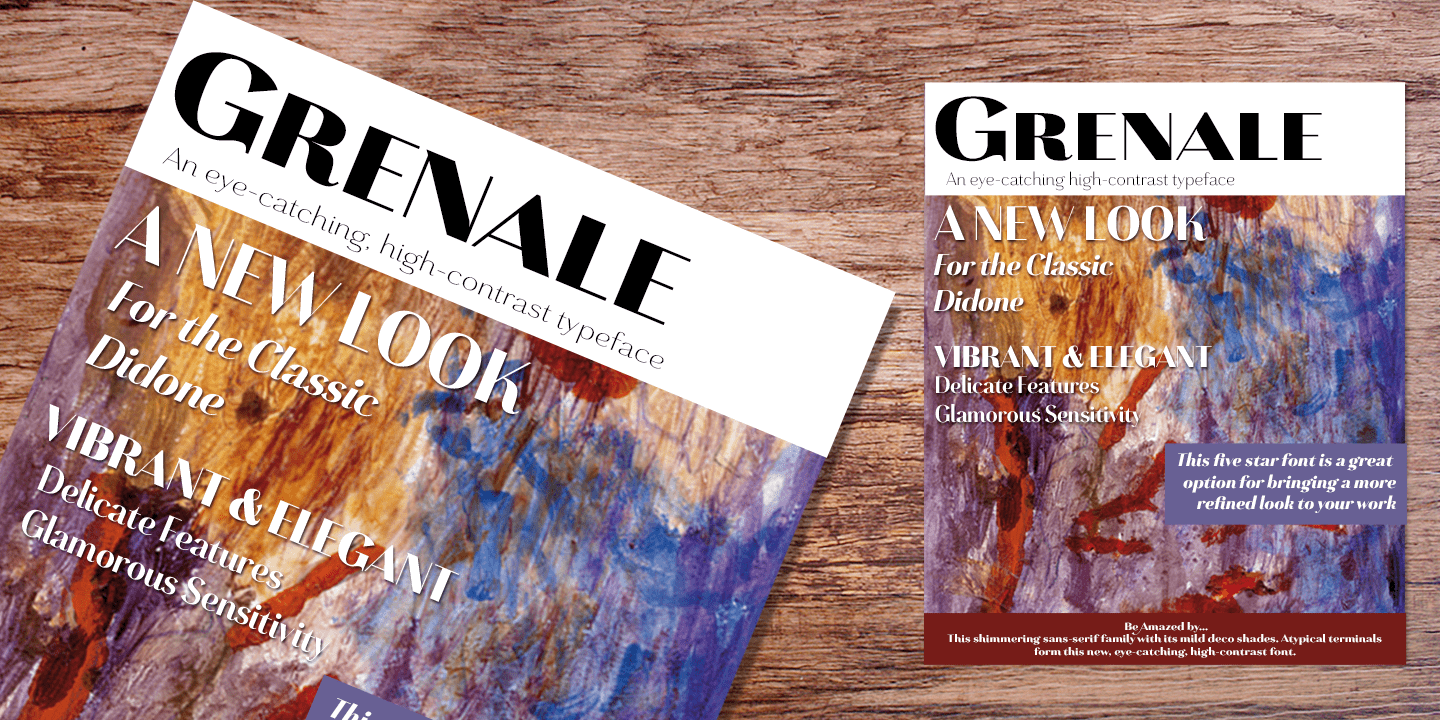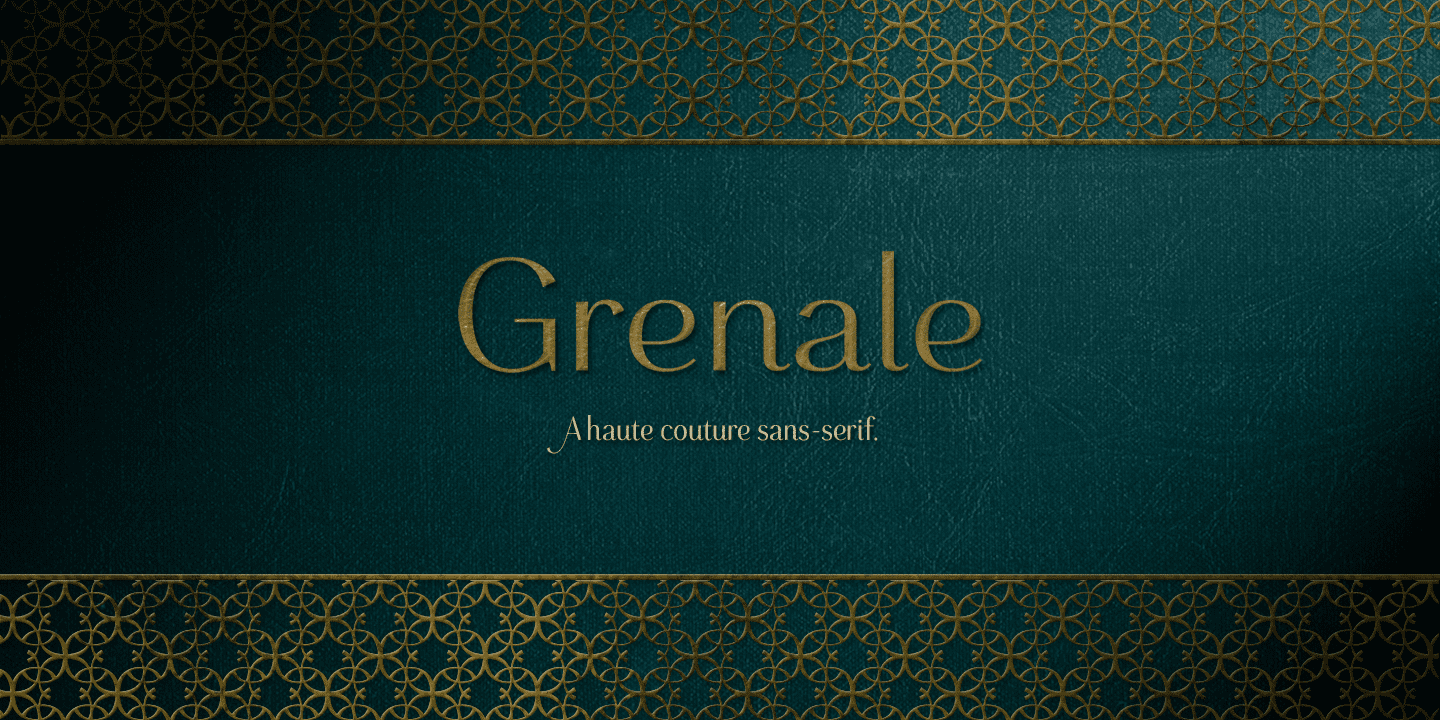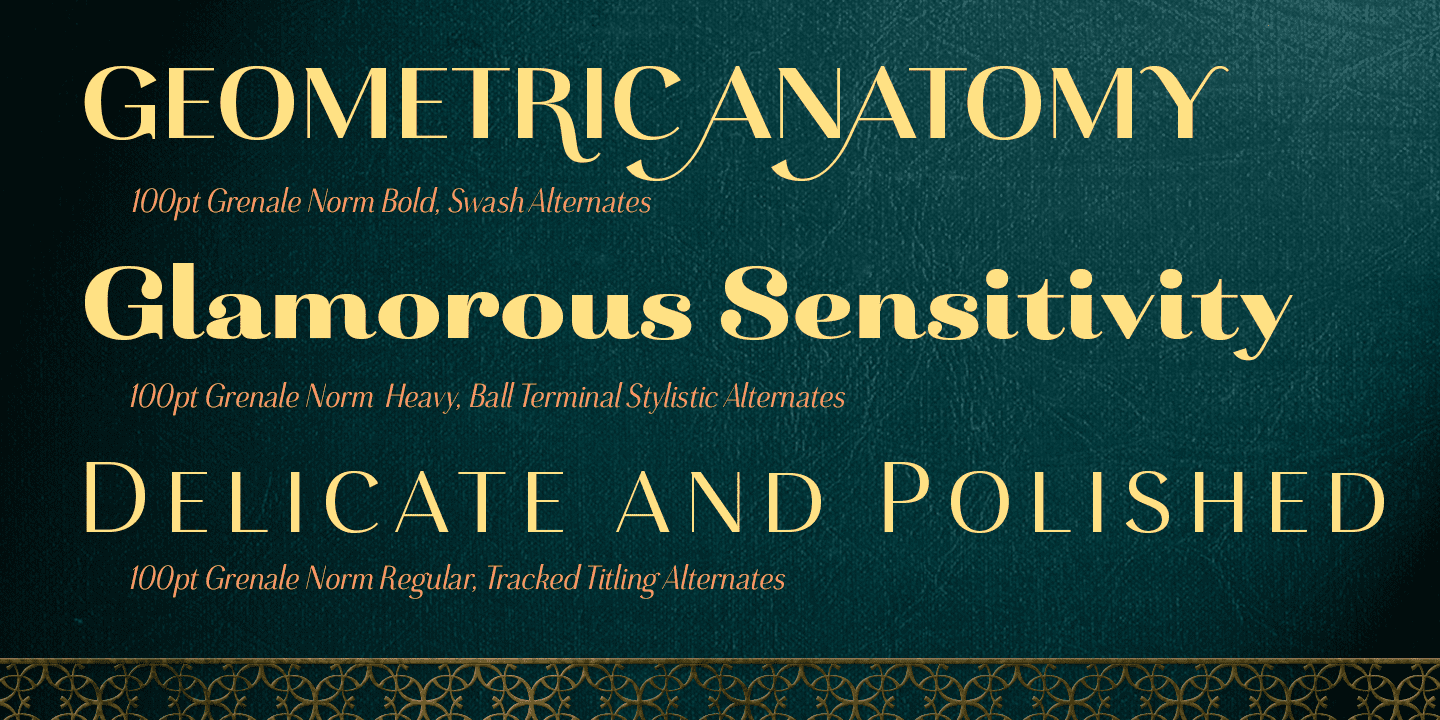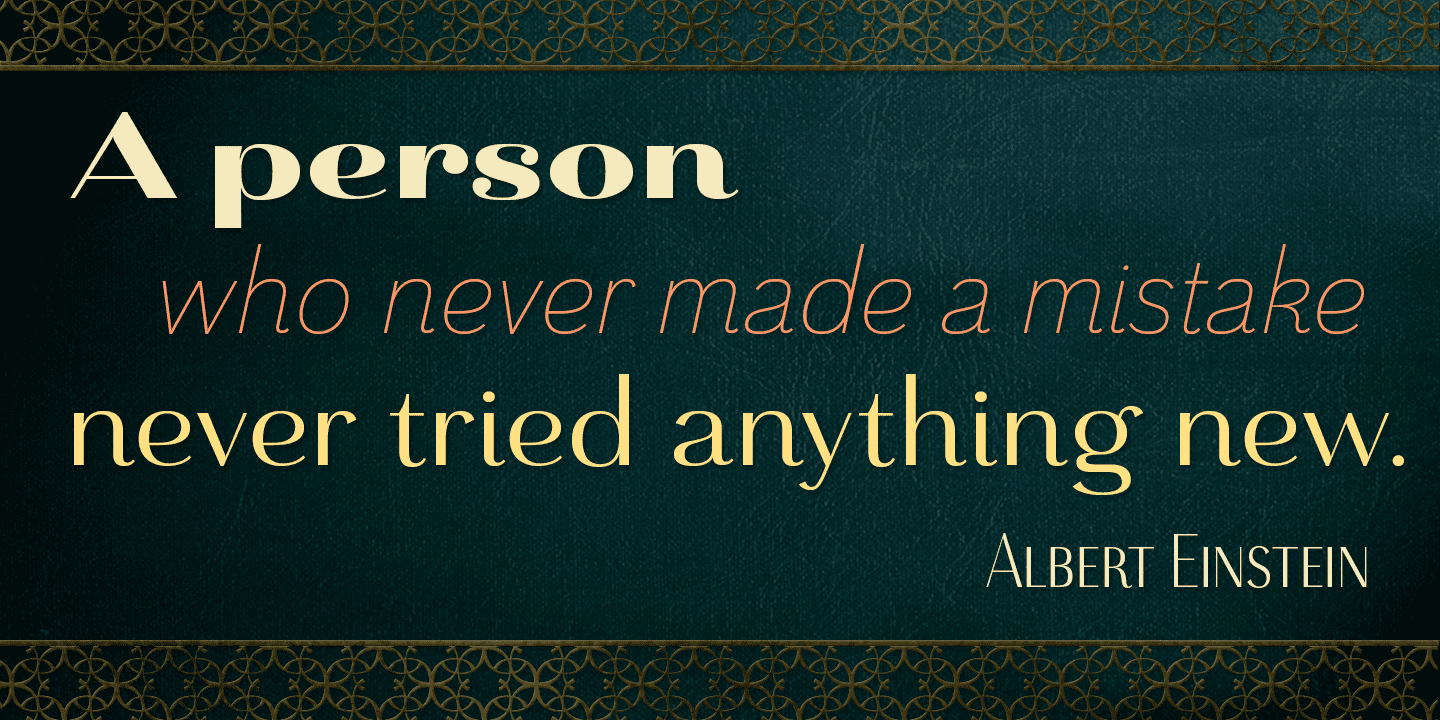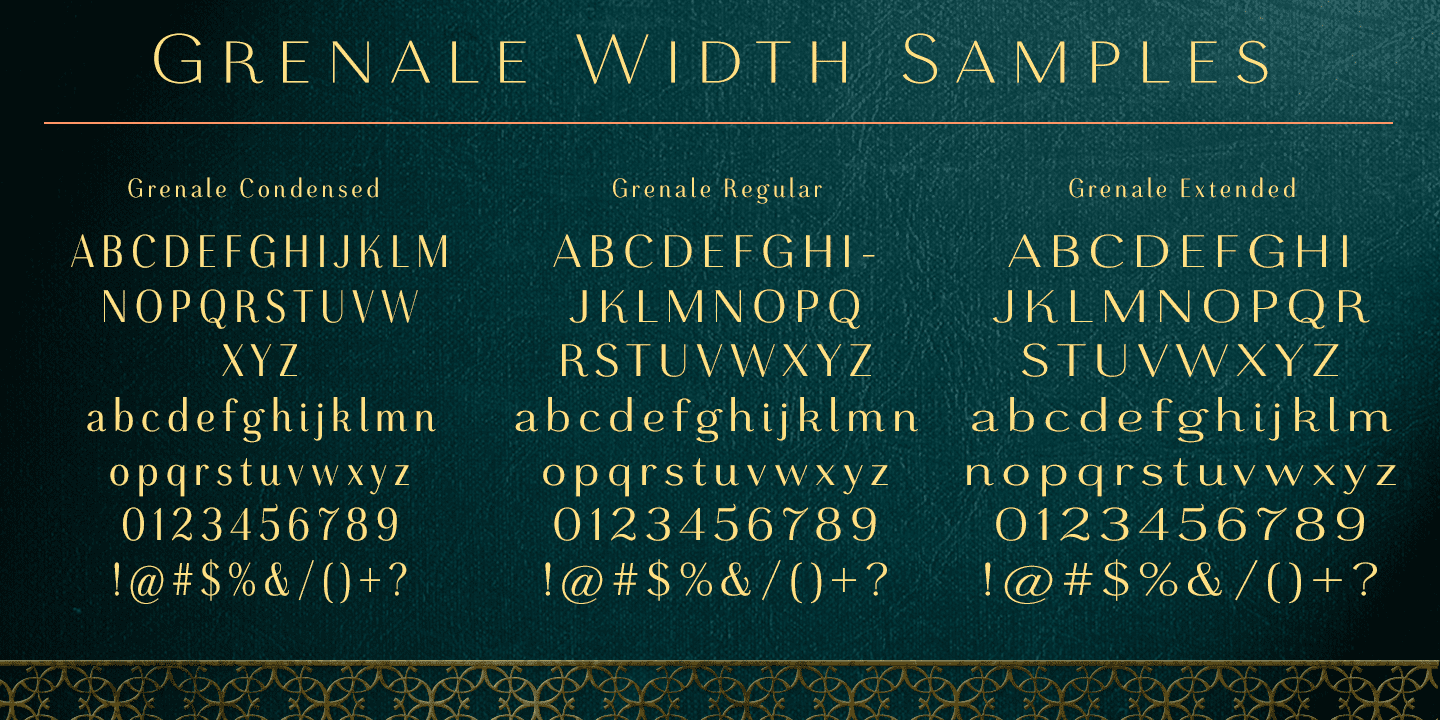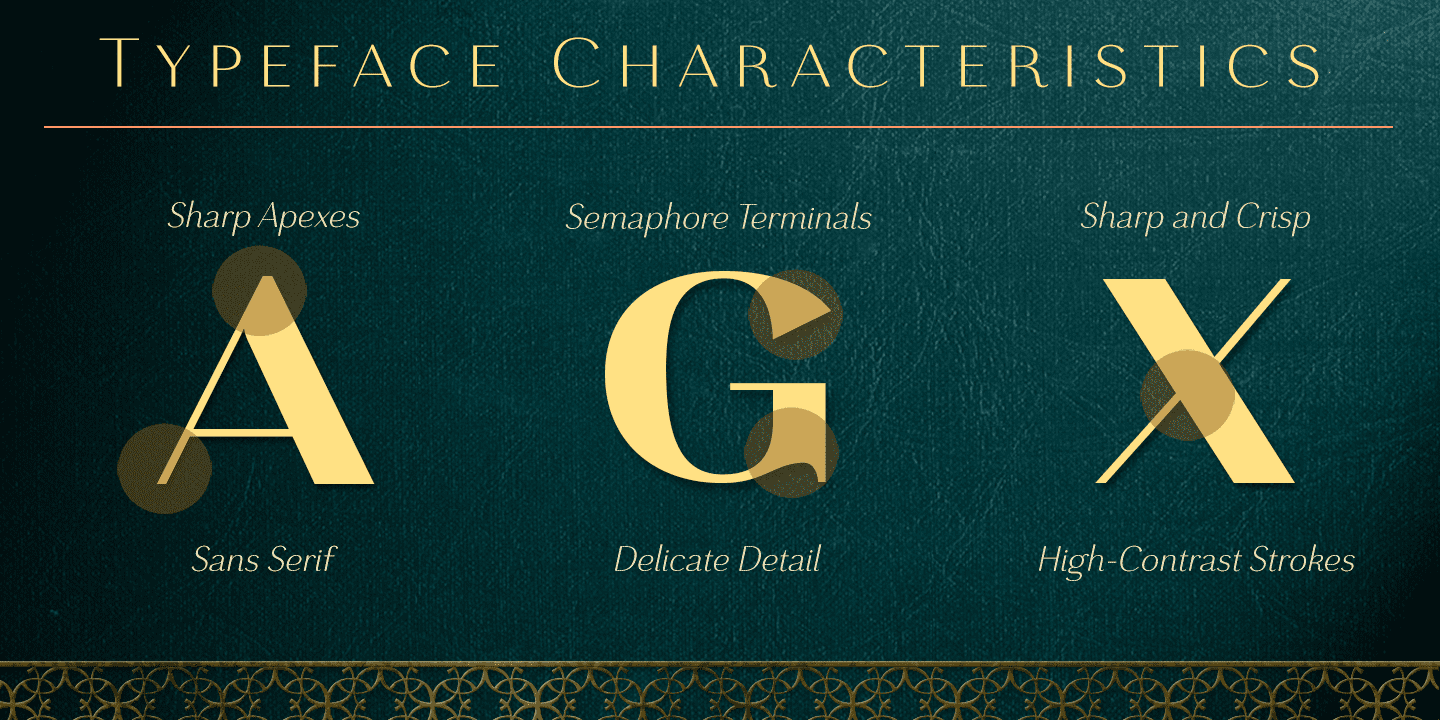
Grenale's thin weights are simple but vibrant--elegant forms that naturally lend themselves to designer journals and high-end branding along with upscale applications. With added energy and power, the thicker weights give your work a firmer, statlier look. Grenale #2's upright versions are also matched by optically adjusted italics. While unique in appearance, any of #2's weight also provide a well-matched companion to its original counterpart.
The fashionable typeface includes a multitude of alternates that may be accessed in any OpenType-enabled application. The stylish features include a large group of alternates, swashes, and meticulously refined details with ball terminals and alternate titling caps to accessorize the font. Also included are capital swash alternates, old style figures, and small caps. Peruse the PDF brochure to see these features in action. OpenType enabled applications such as the Adobe suite or Quark can take full advantage of the automatic replacing ligatures and alternates. This family also offers the glyphs to support a wide range of languages.
It's time to think high-class. Graceful and assured, the carefully crafted forms of Grenale #2 step pleasantly onto each page with elegant charm. Include its range of alternate glyphs, and this chic font is a superb choice for bringing a far more refined look to your projects.